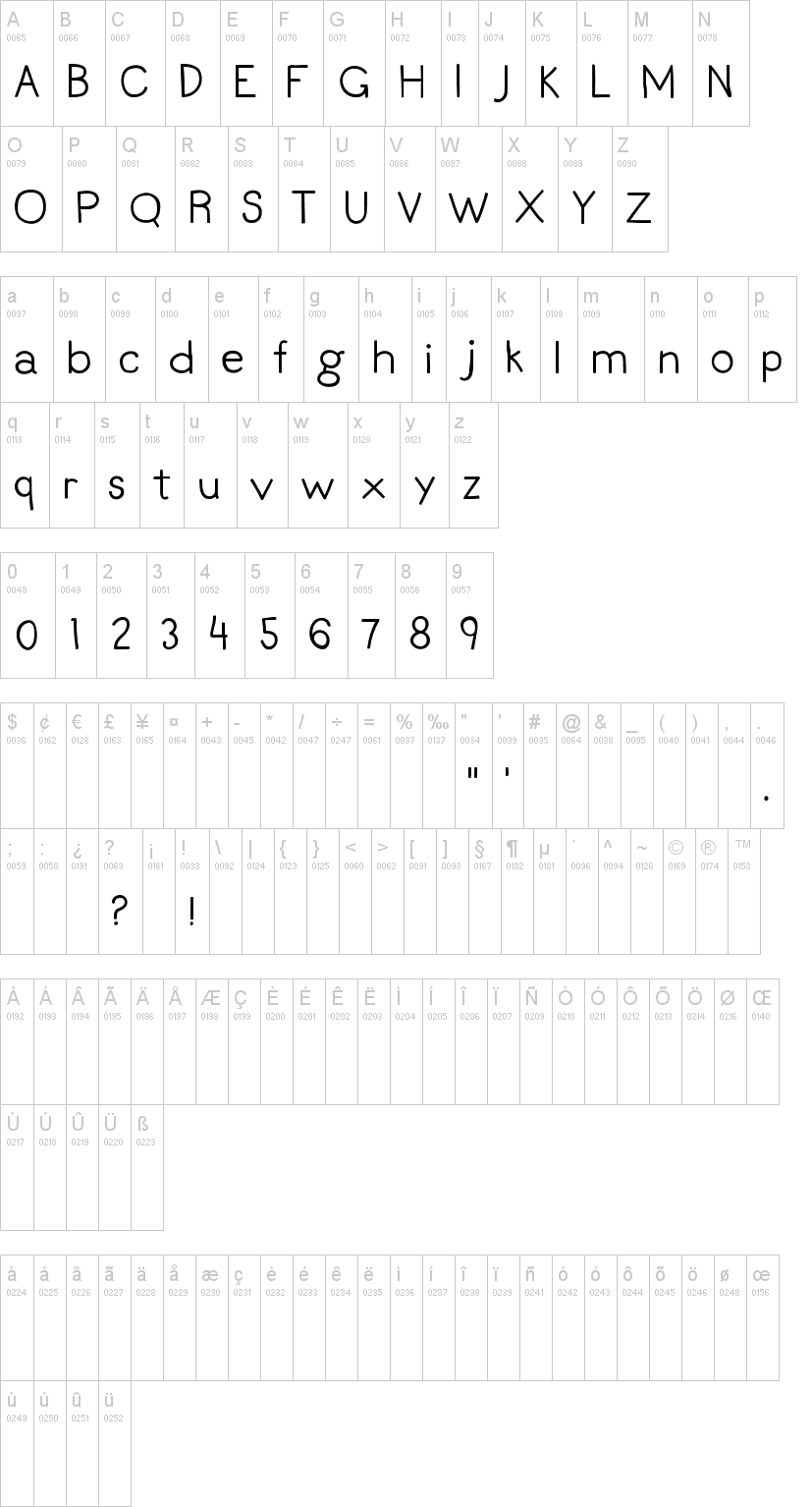
Note of the authorA hand-drawn typeface with a child-like, handwritten look. Works very well for designs for kids. Or use it to add a personal, playful touch to any design piece.